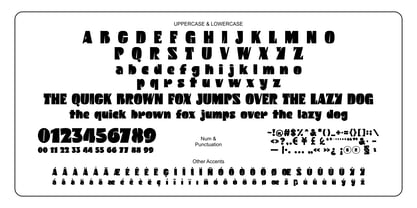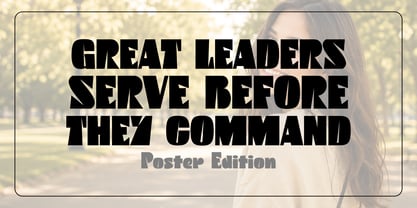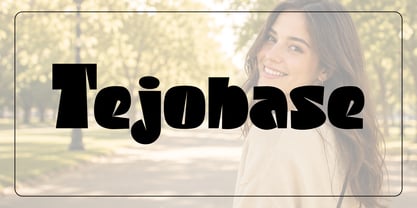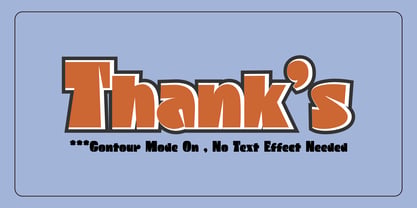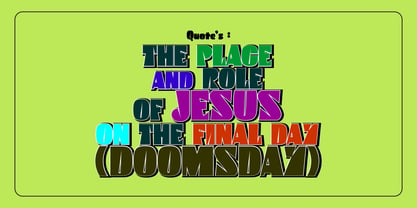
Tejobase
von Wontenart
Die Schriftfamilie Tejobase wurde von Iskandar Zulkarnain entworfen und von Wontenart veröffentlicht. Tejobase enthält 1 Stile. Mehr über diese Familie
Tejobase is a bold display stencil font designed to create a powerful visual impact. Featuring strong geometric letterforms with unique cut-out stencil details, this typeface is perfect for eye-catching headlines, posters, branding, packaging, sports graphics, social media, YouTube thumbnails, and modern editorial designs. The font combines a bold industrial aesthetic with contemporary styling, making it ideal for projects that require confidence, energy, and high readability. Whether you’re creating modern branding, urban posters, or bold promotional graphics, Tejobase delivers a distinctive and memorable visual style.
Designer: Iskandar Zulkarnain
Foundry: Wontenart